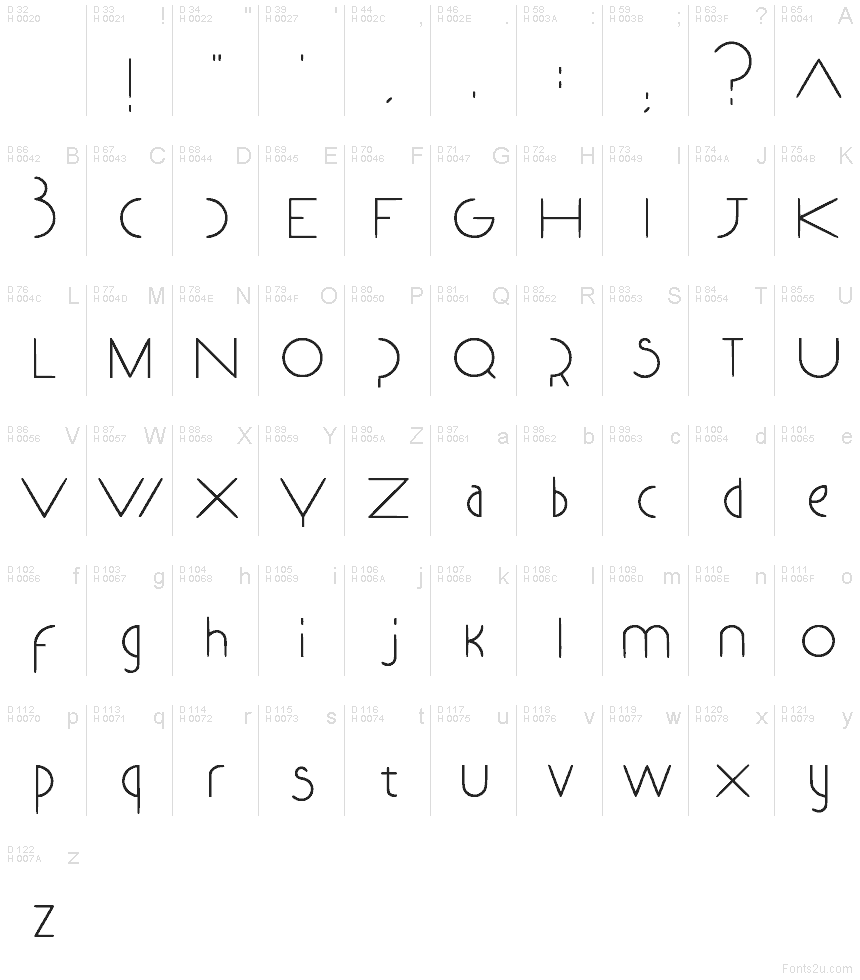
Arq Geometry Regular
Arq Geometry font by Ruben Contreras is a sleek, minimalist display font with a geometric influence. This stylish, light-weight font harnesses the subtle power of clean lines to lend a modern aesthetic to any written work. Gentle and elegant in its visual appearance, its elegance mostly shines for contemporary usage in branding and design projects.
When used as the main or accent typeface, Arq Geometry is perfect for logos, packaging designs, posters, headlines or digital interfaces. This free font is versatile enough for both web and print applications such as magazines or newspapers but also business card designs or social media posts!